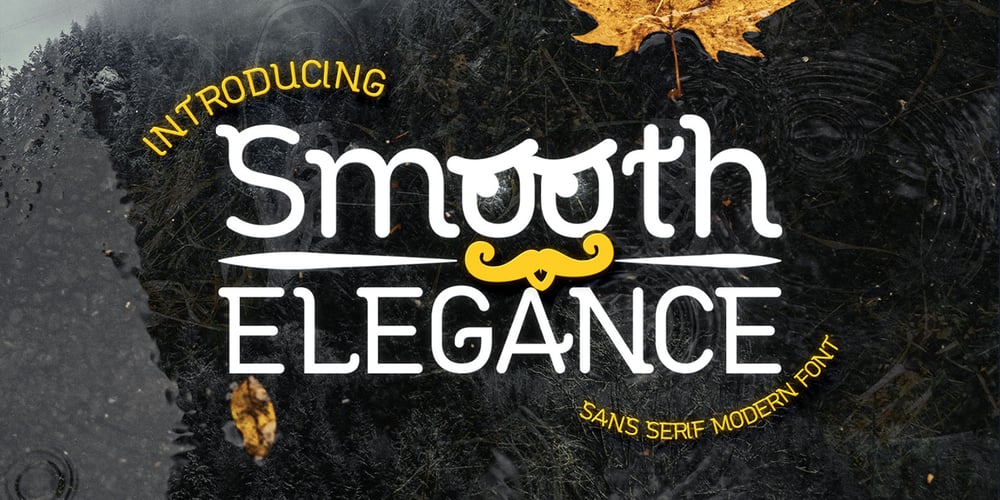
Smooth Elegance Font Family was designed by Mohammed Lamjidi and published by Beast Designer. Smooth Elegance contains 1 styles and family package options. Smooth Elegance Font is an elegant and casual sans serif font.It is the best choice for creating eye catching logos, branding and quotes.Fall in love with its incredibly distinct and timeless style and use it to create spectacular designs!